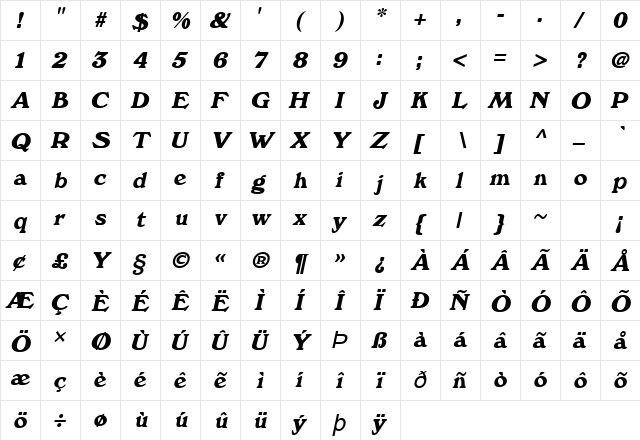
Dictionary Italic Font Preview
Dictionary Italic
Dictionary Italic Font Details
Design Context for Dictionary Typeface
Dictionary takes a measured approach to typography — its balanced proportions and neutral character make it a reliable workhorse for both digital and print work. The slanted form adds forward momentum and visual energy.